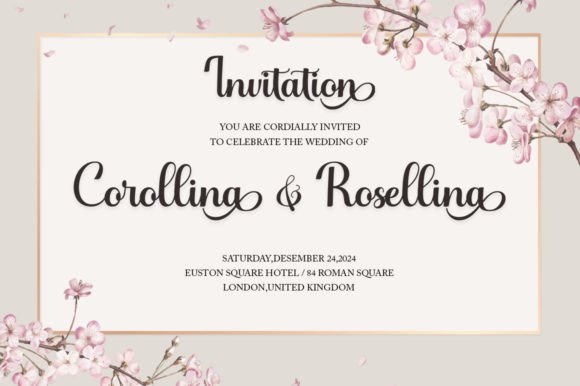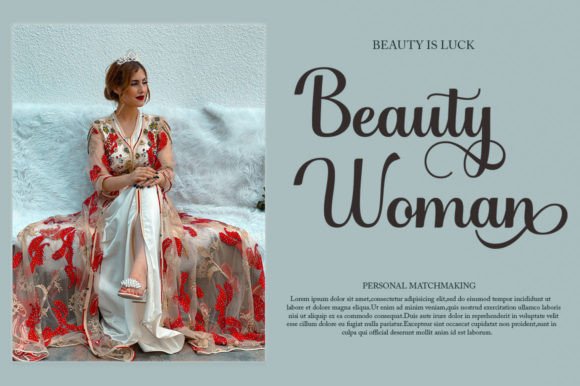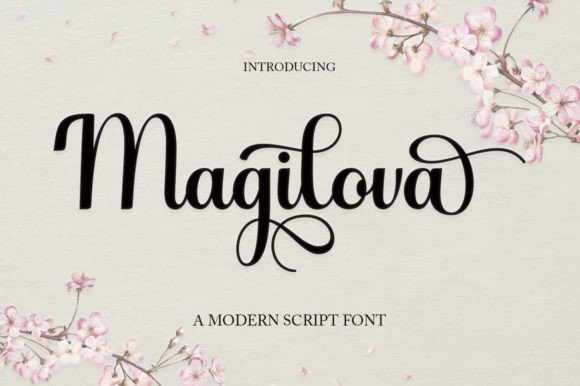
Introduction to Magilova Font
As a designer, there’s nothing quite like the thrill of stumbling upon the perfect font to elevate your creative project. Whether it’s a logo, a wedding invitation, or a social media campaign, the right font can make all the difference. And that’s exactly what you’ll discover when you meet the enchanting Magilova Font. This sweet and romantic calligraphy typeface is sure to capture your heart with its effortless elegance and whimsical flair.
With its PUA encoded glyphs and swashes, the Magilova Font is a design resource that’s both easy to use and incredibly versatile. From high-quality logos to transparent background designs, this font is a valuable addition to any designer’s toolkit. And the best part? It’s available for a free download, making it an accessible and affordable resource for creative projects of all kinds.
Key Features of Magilova Font
- High-quality font designed for creative projects, available for free download.
- Unique, elegant design with a transparent background, making it a versatile design resource.
- Magilova Font comes in a single size, making it easy to use in various design contexts.
- Designed with a high resolution of 300 DPI, ensuring crisp and clear text output.
- Perfect for use in various creative projects, including graphic design, web design, and digital art.
Honest Review: Magilova Font
As a designer, I’m always on the lookout for high-quality design resources to enhance my creative projects. Recently, I stumbled upon the Magilova Font, and I’m excited to share my honest review with you.
- Unique and elegant design style that adds a touch of sophistication to any project
- Transparent background, allowing for seamless integration with any design
- Limited character set, which may not be suitable for projects requiring a wide range of characters
- No bold or italic font weights available, which may limit its use in certain design contexts
Overall, the Magilova Font is a solid addition to any designer’s collection. While it may have some limitations, its unique design style and high-quality aesthetic make it a valuable resource for any creative project. If you’re looking for a free font with a touch of elegance, the Magilova Font is definitely worth checking out.
Magilova Font Overview
The Magilova Font is a high-quality design resource perfect for creative projects. It’s available for free download with a transparent background, making it easy to use in various design applications.
Tips for Getting the Most Out of Magilova Font
Experiment with different font sizes, colors, and combinations to create unique and eye-catching designs. Use the font in conjunction with other design elements, such as images and graphics, to create a visually appealing design.
Common Use Cases for Magilova Font
The Magilova Font is suitable for a variety of creative projects, including logos, branding materials, social media graphics, and advertising materials. Its high-quality design and transparent background make it a versatile and convenient design resource.